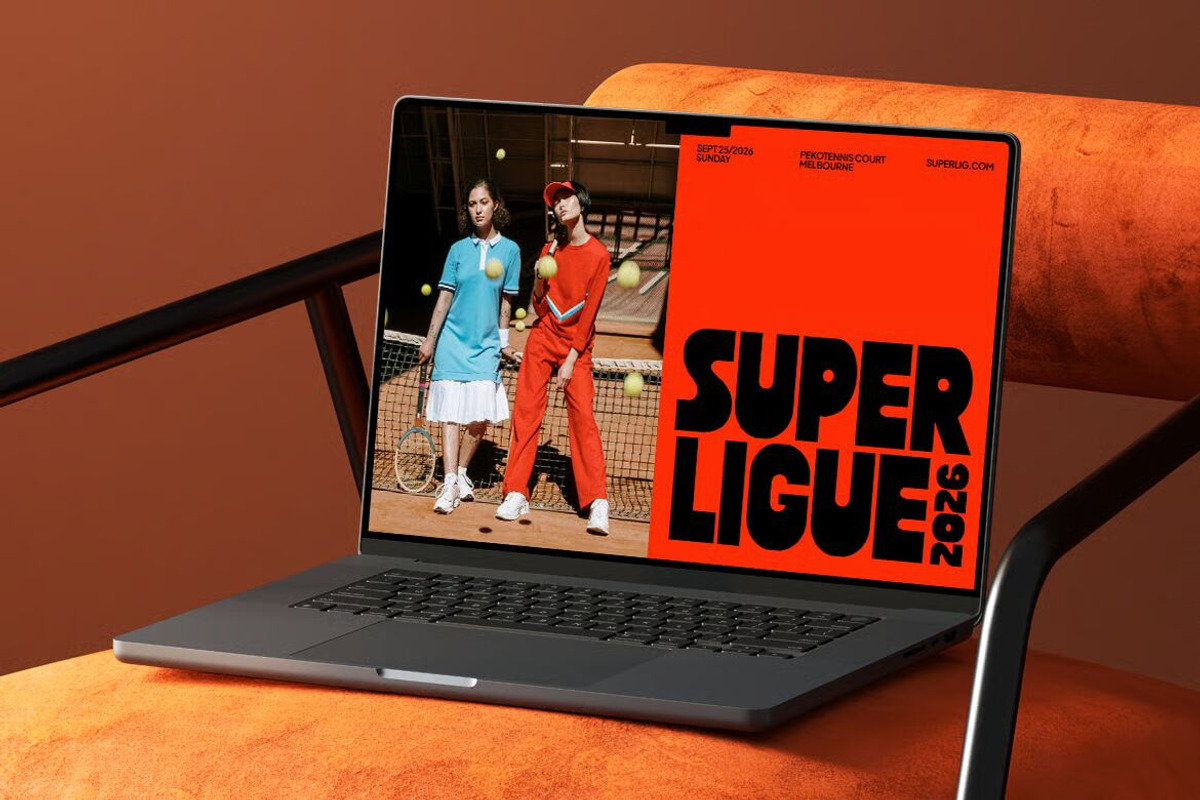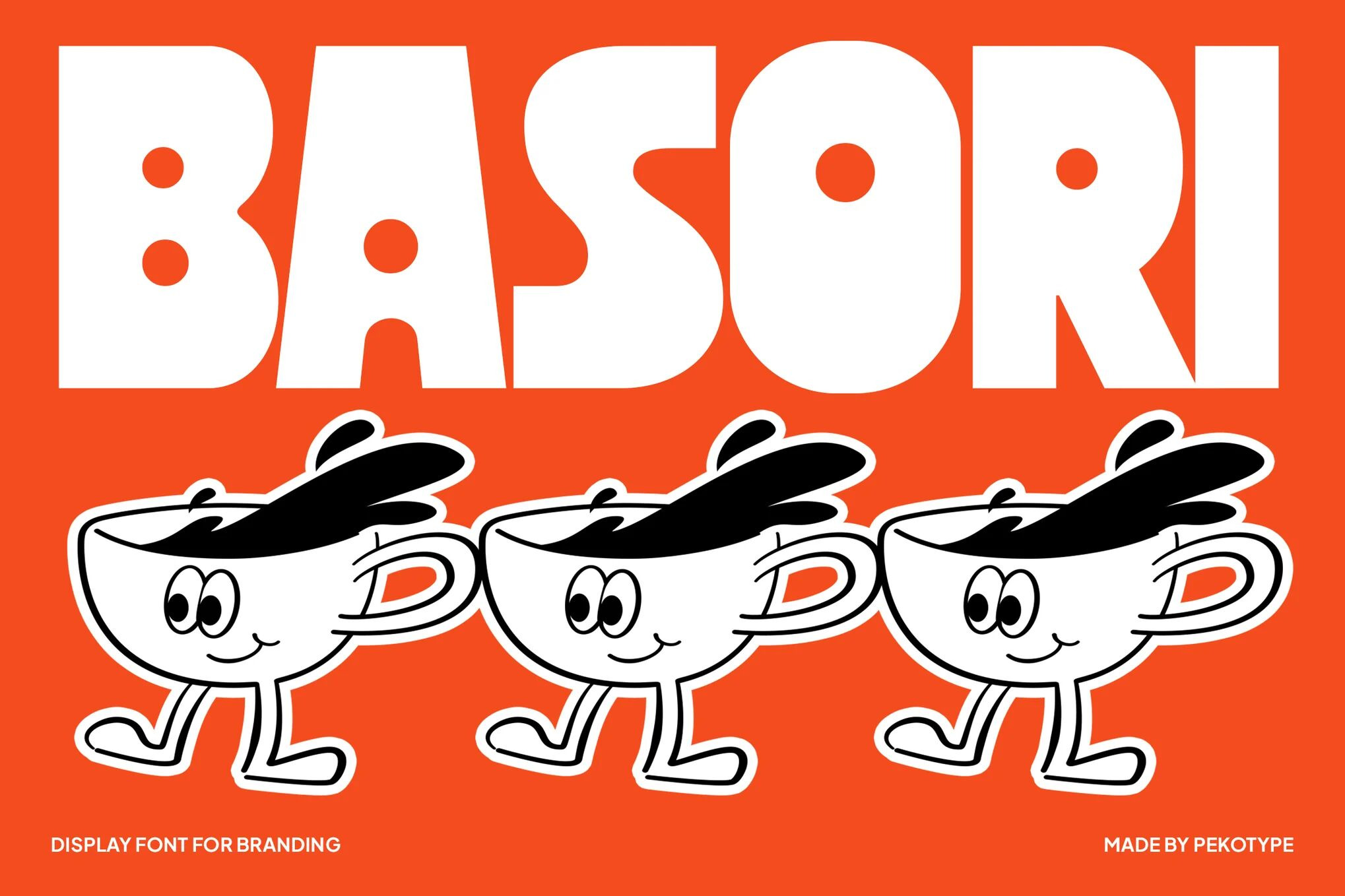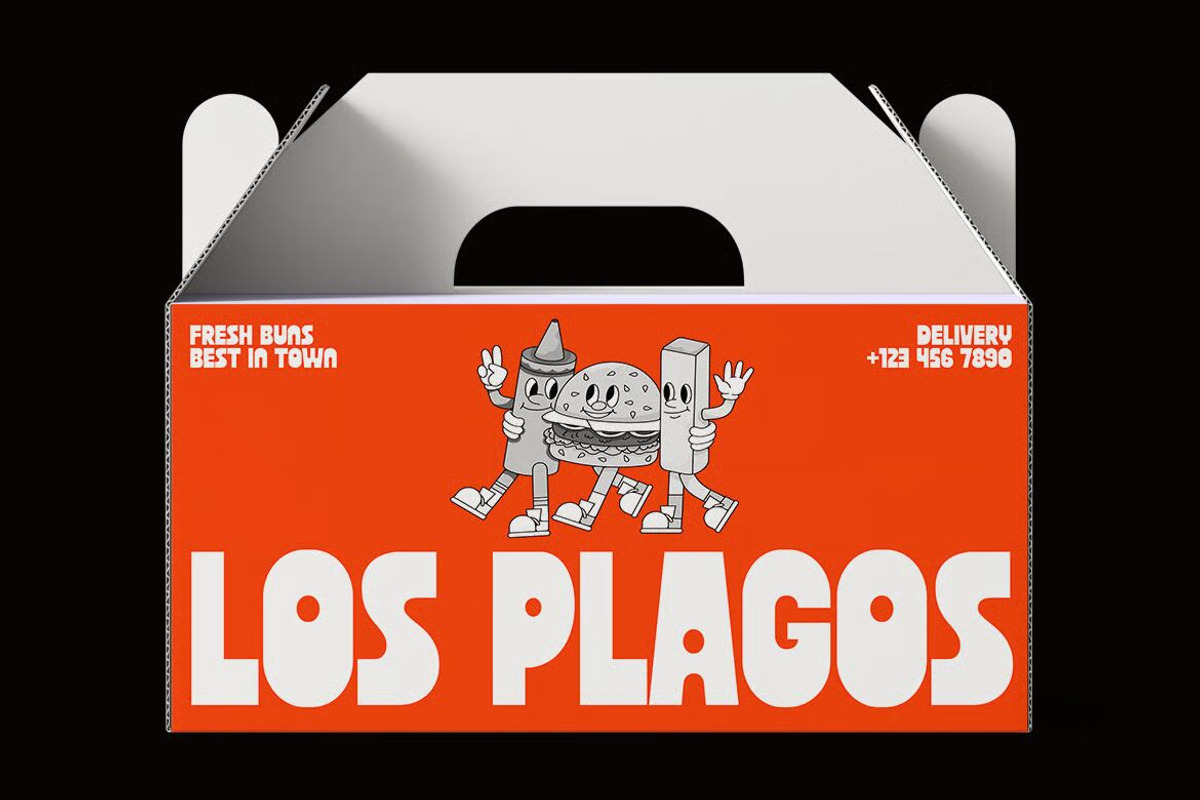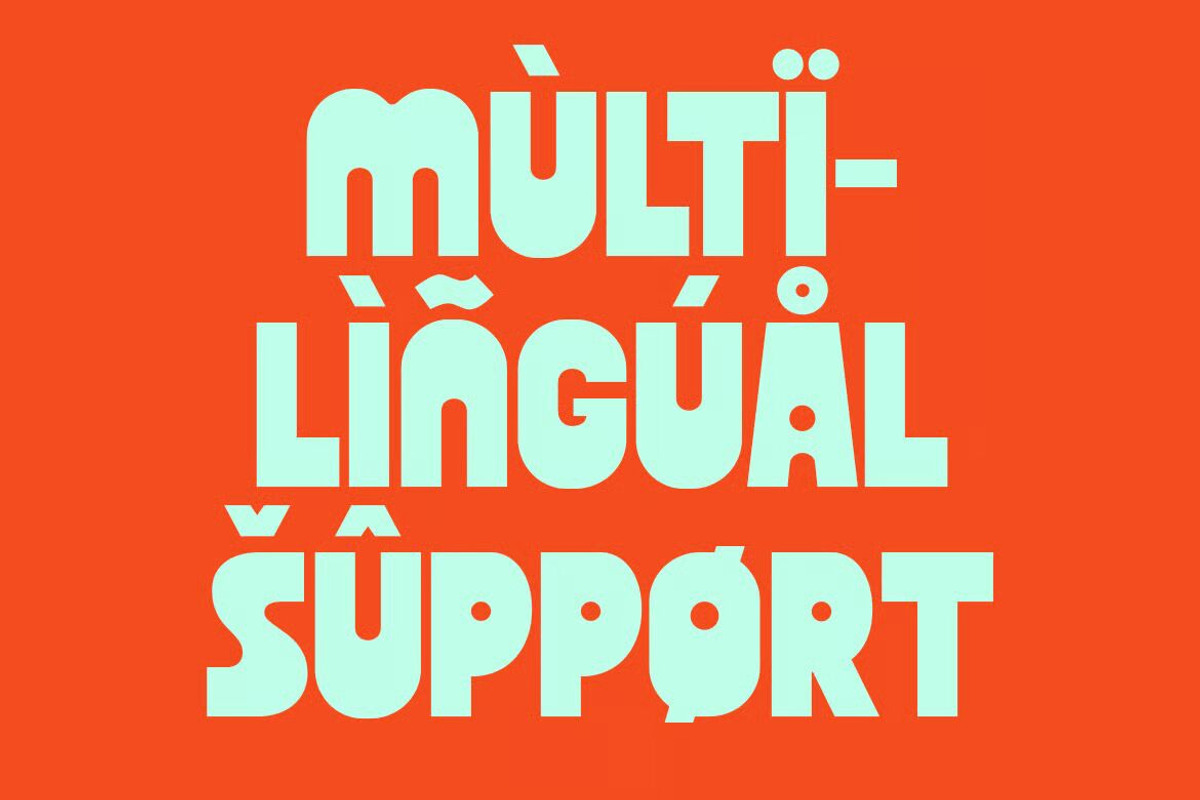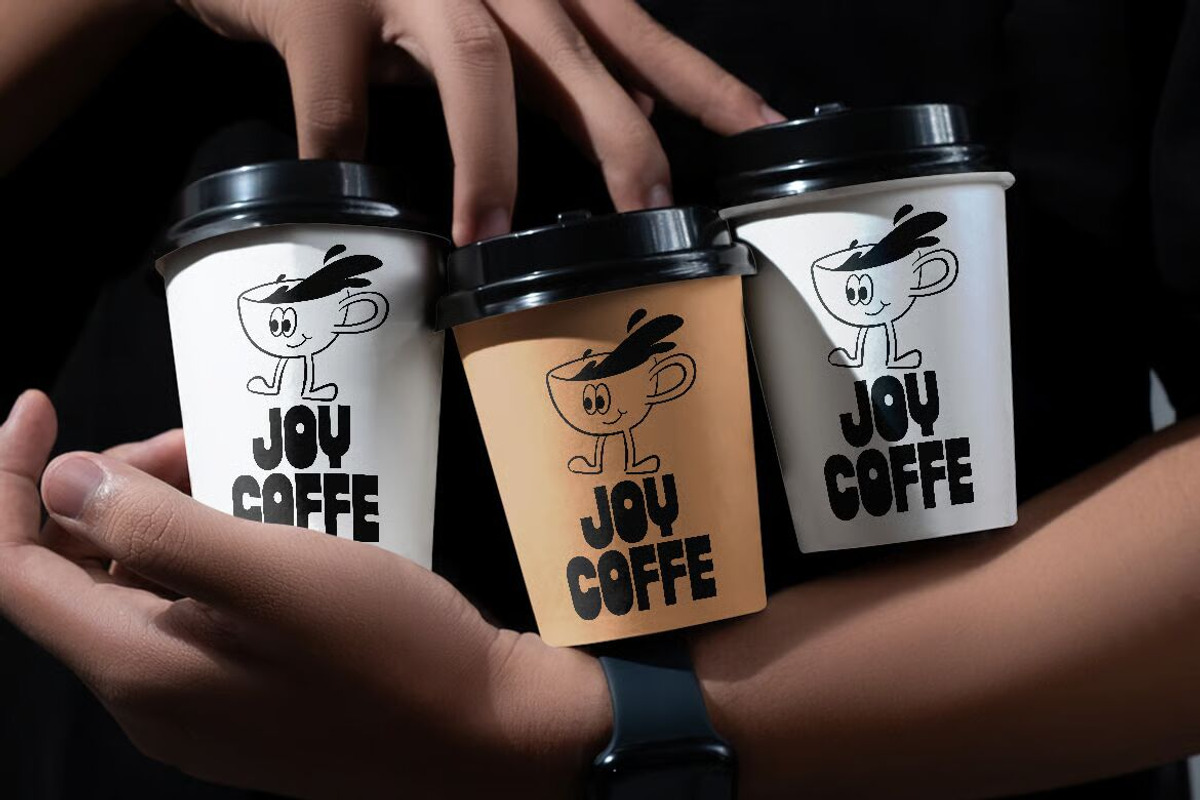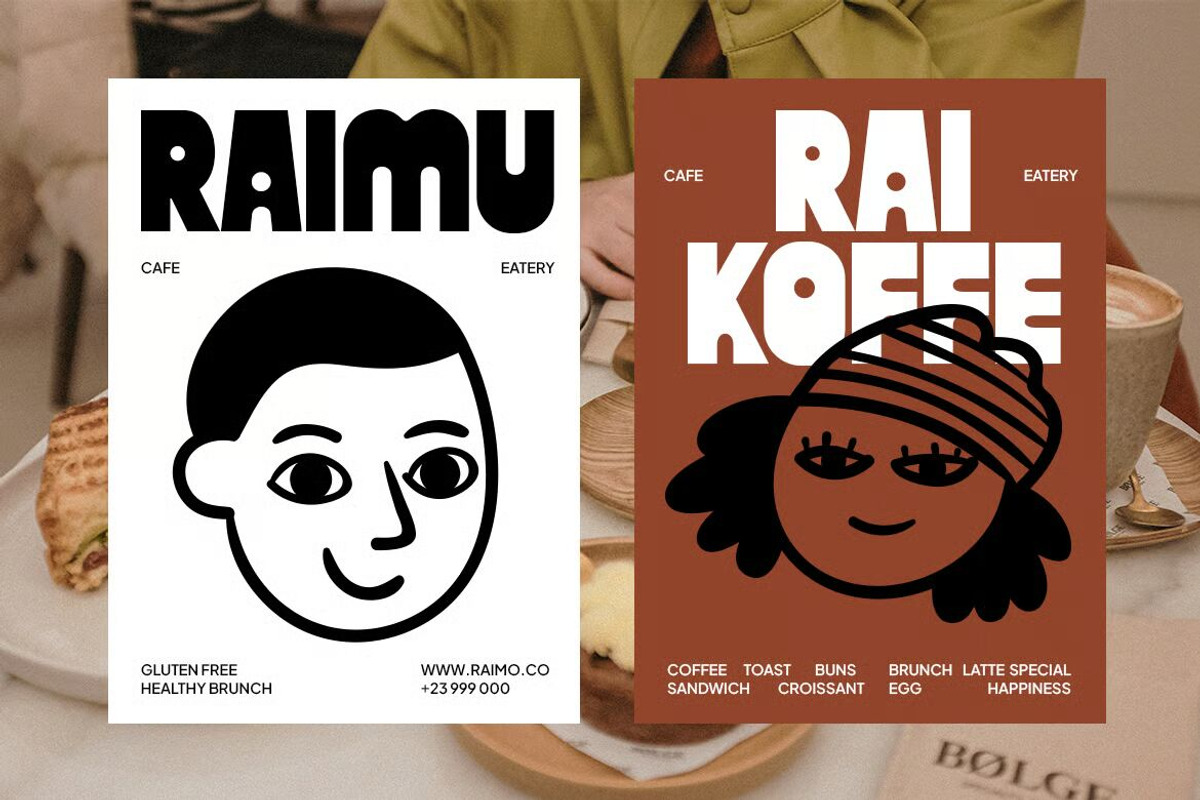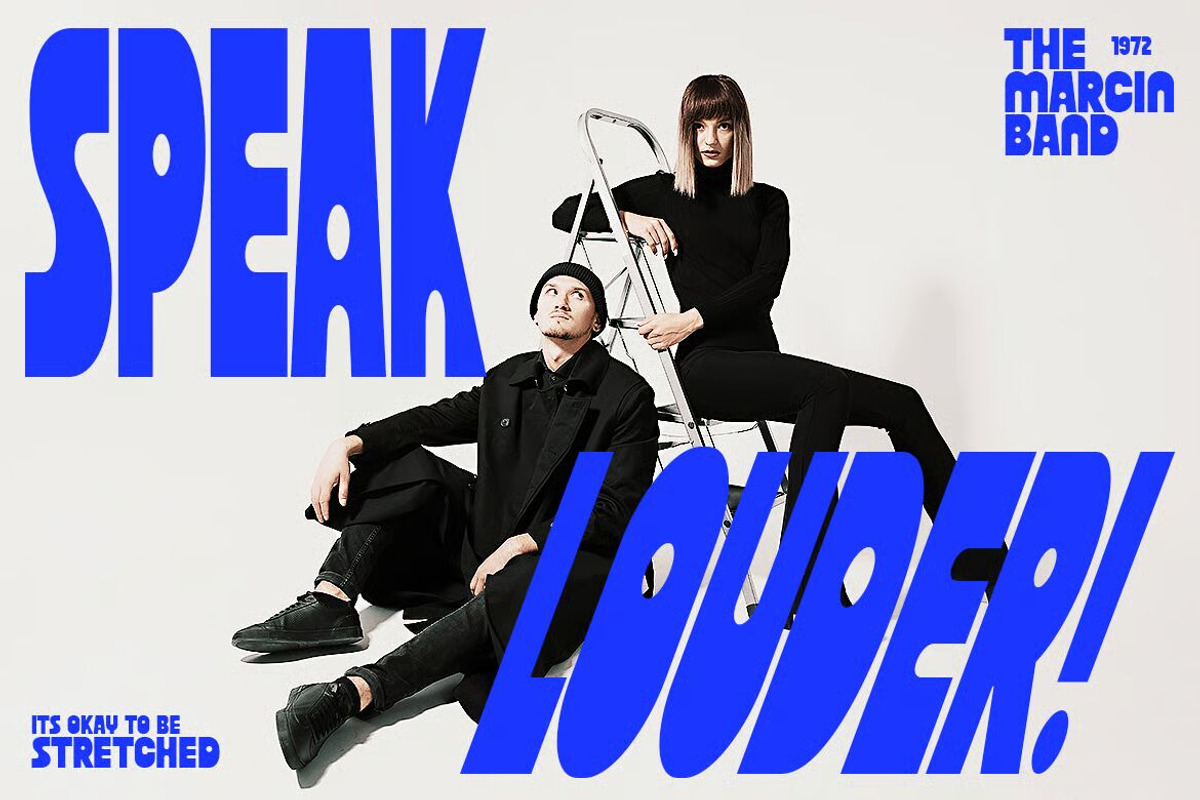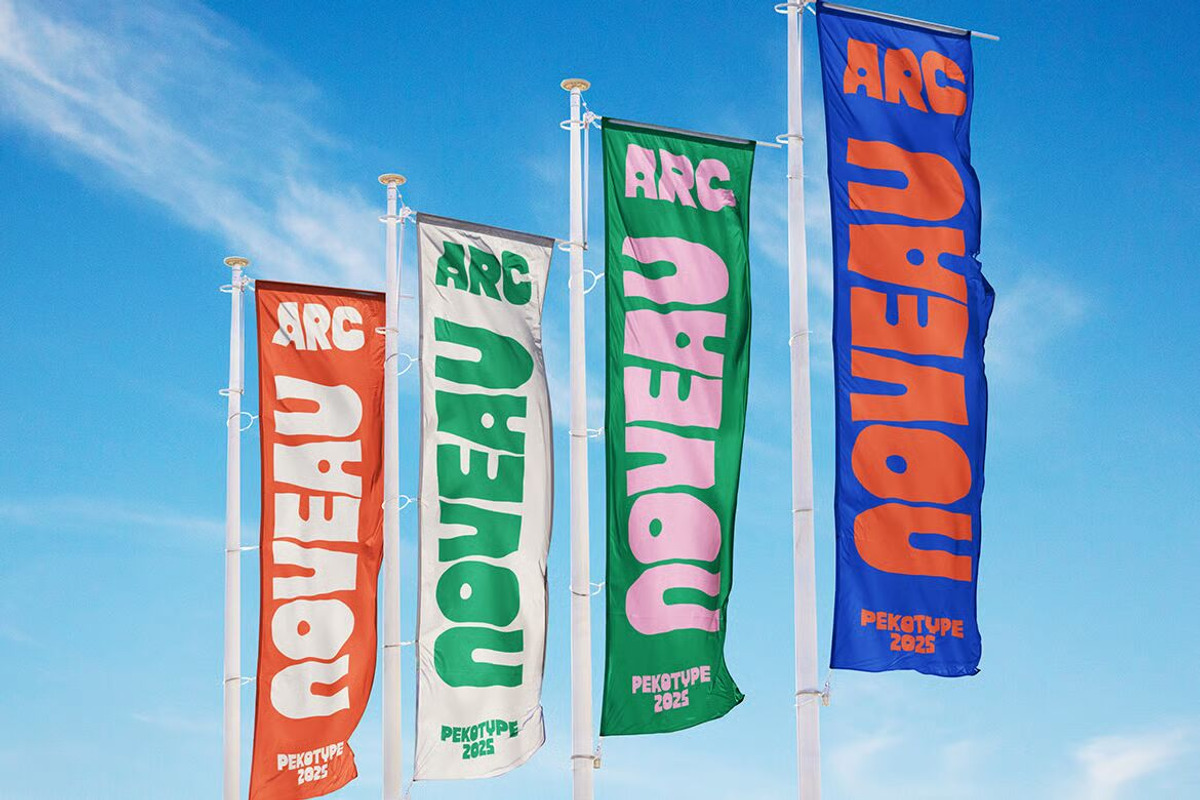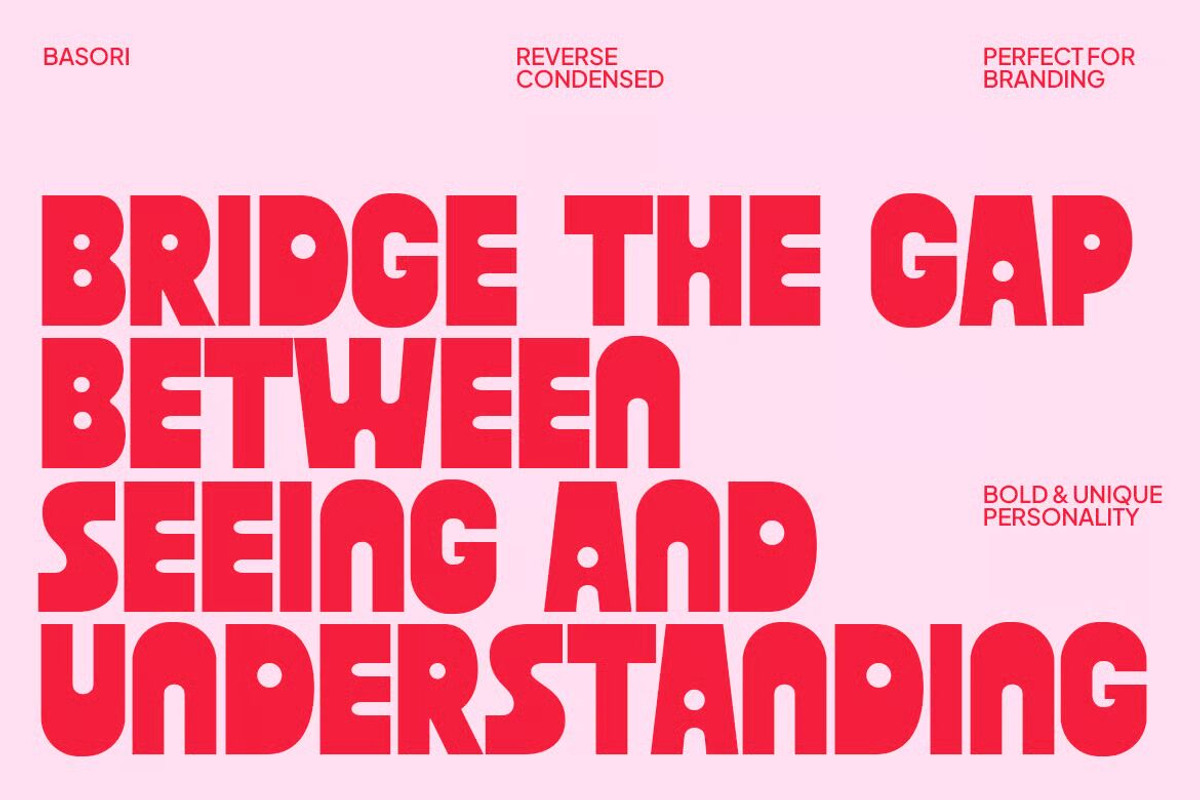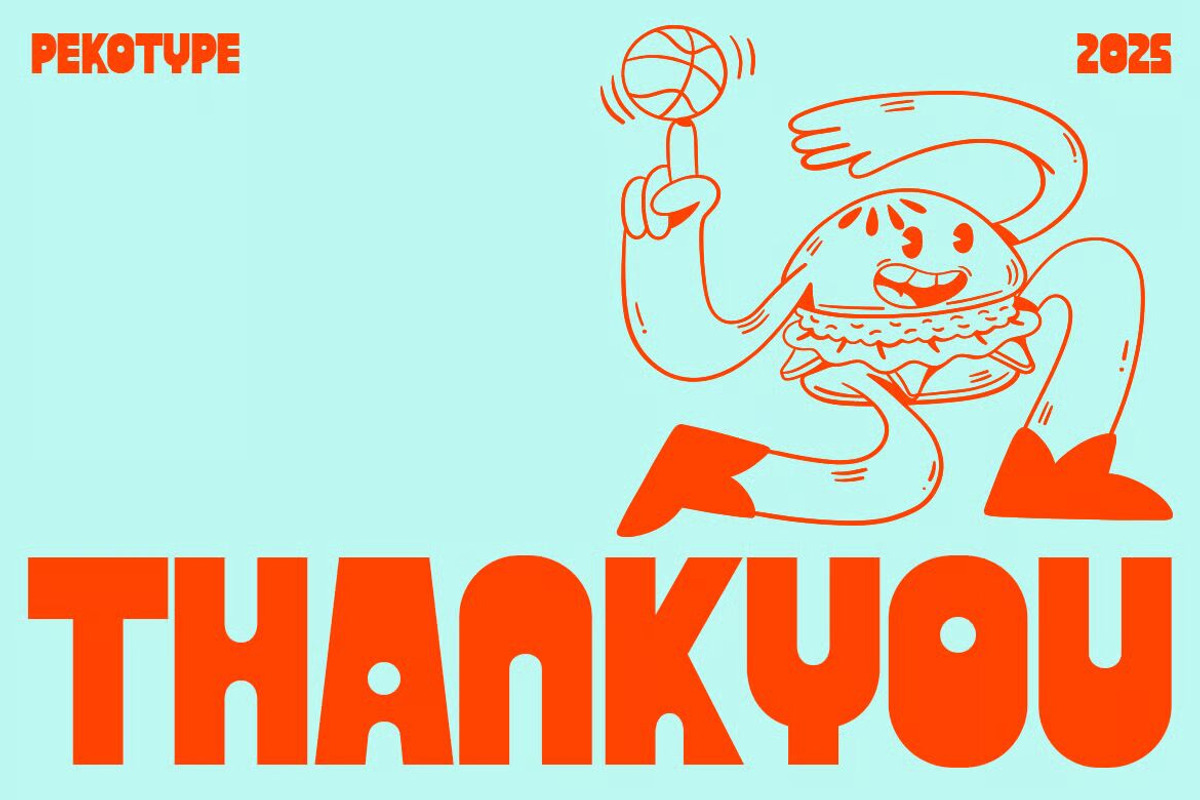
Basori - Bold Display Font
Basori – Bold Reverse Contrast Display Font for Branding
Looking for a font that instantly grabs attention and brings a fun, bold vibe to your design? BASORI is the perfect choice. This reverse contrast display font features a bold and slightly condensed structure, making it stand out in any layout. Its unique letterforms are designed to be catchy, playful, and highly memorable, making it a top pick for modern branding.
BASORI is especially suitable for cafés, food & beverage brands, packaging, logos, and social media promotions. Its strong presence ensures your message stands out while still maintaining a friendly and approachable feel. Whether you’re designing a café menu, creating eye-catching marketing campaigns, or building a brand identity, BASORI brings energy and personality to your project.
- All-Caps Font